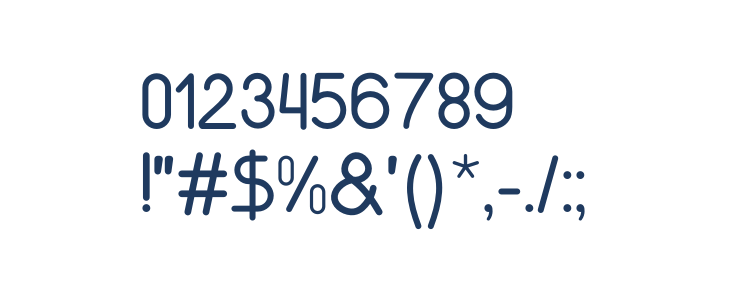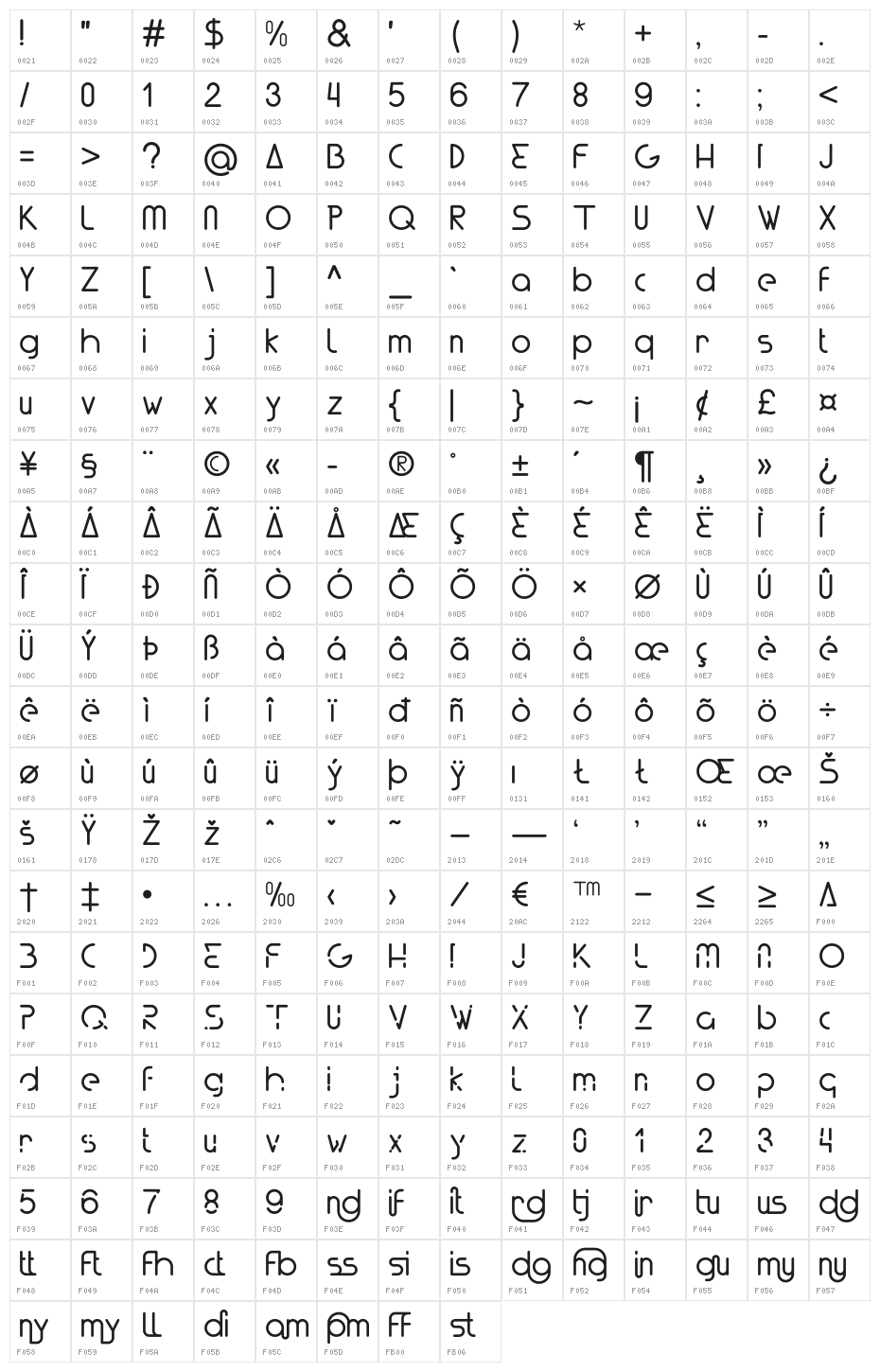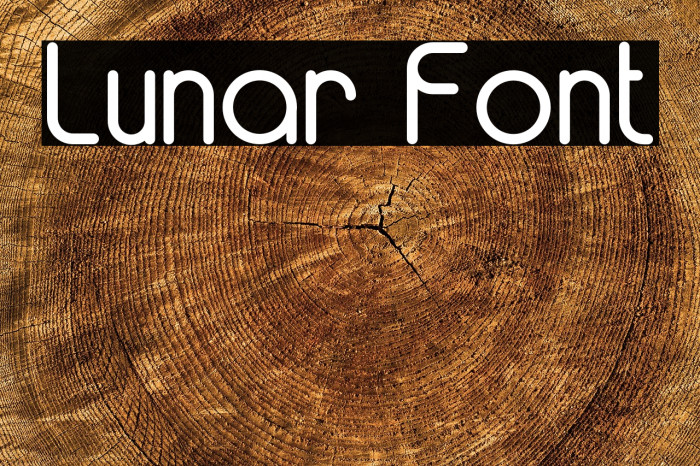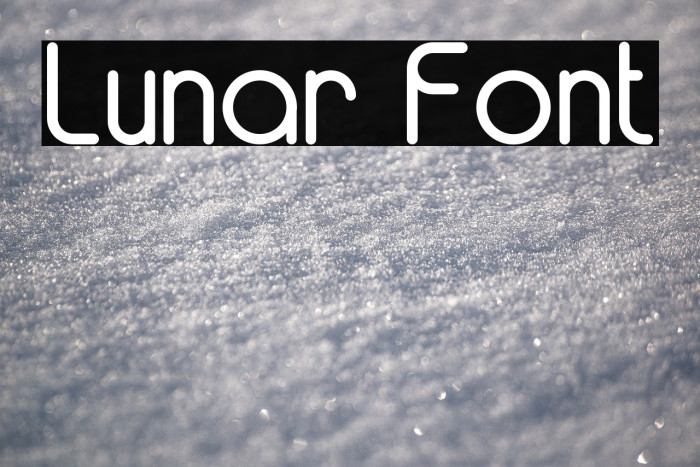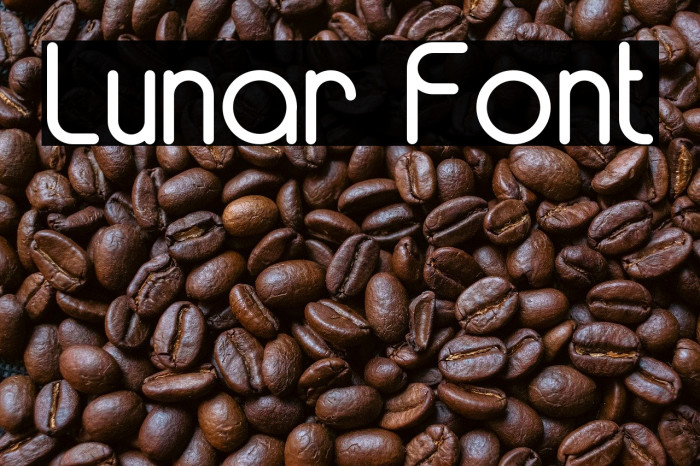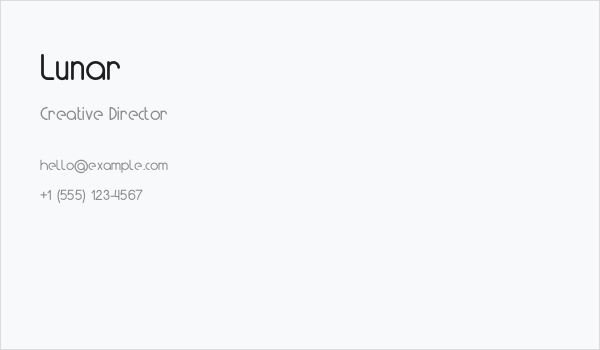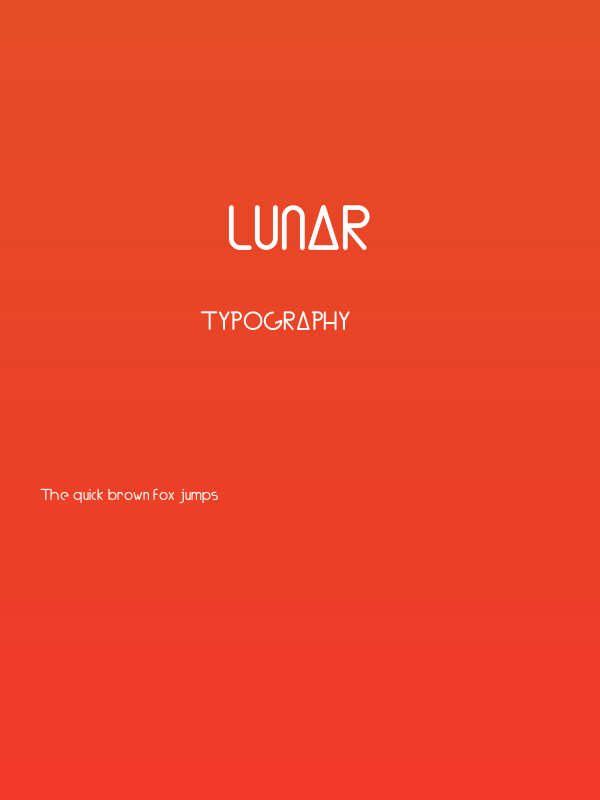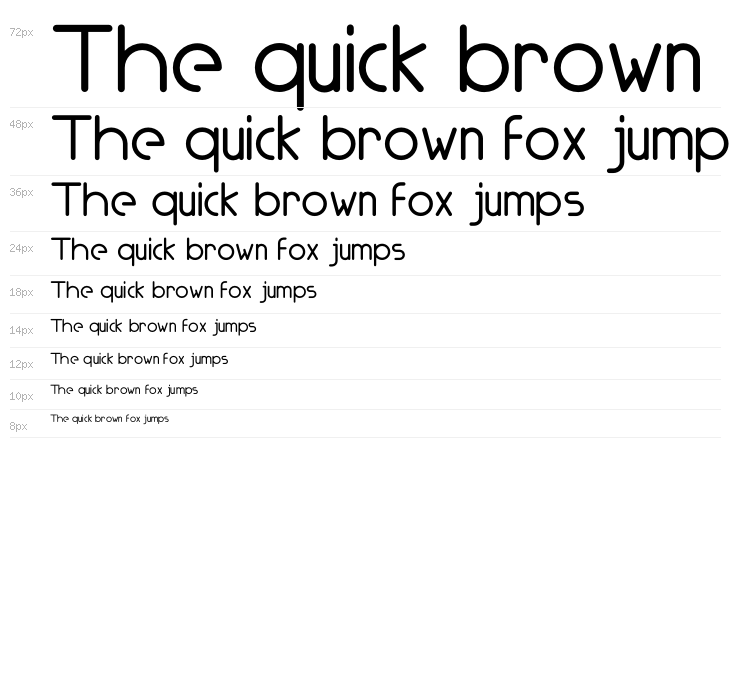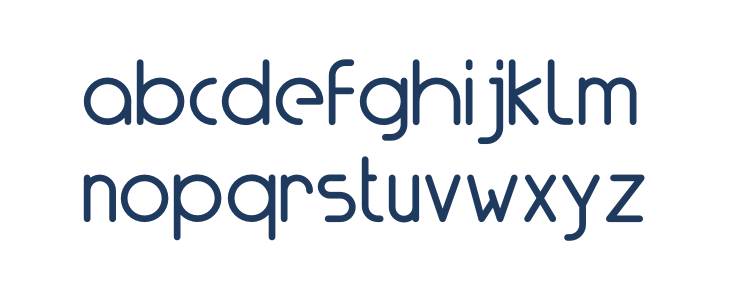
Lunar Font
Lunar Description
This font features a modern and futuristic design with rounded edges and a geometric structure. The uppercase letters are distinct with a unique blend of curves and straight lines, creating a sleek and contemporary appearance. The lowercase letters maintain a consistent style, offering a harmonious flow between characters. Numbers and special characters are designed to match the overall aesthetic, ensuring uniformity across all elements. The font's clean lines and minimalistic approach make it versatile for various design applications.
| Use Case | Headlines, Logos, Digital interfaces |
| Proposed Projects | Ideal for tech branding, futuristic posters, digital interfaces, and modern advertising campaigns. |